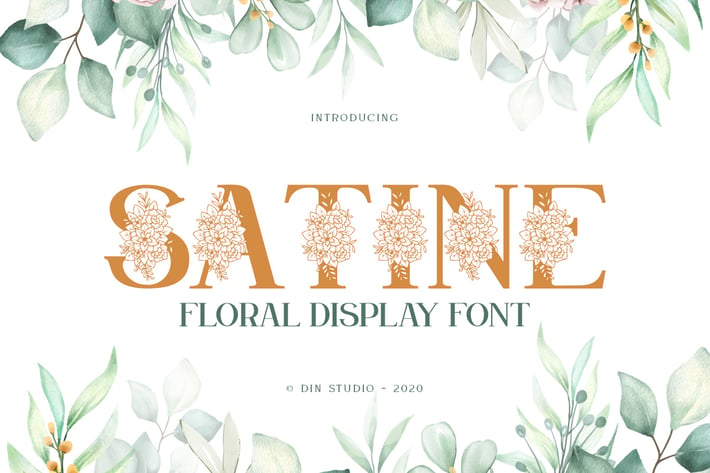
Satine-Floral Display Font
Satine is a beautiful decorative font, featuring elegant flowers. Get inspired by its authentic feel and use it to create gorgeous wedding invitations, lovely stationary art, eye-catching social media posts, and cute greeting cards.